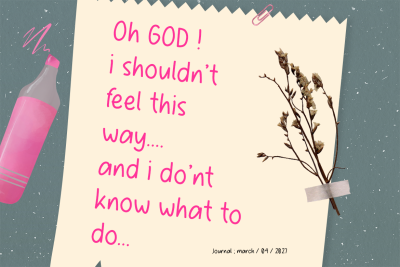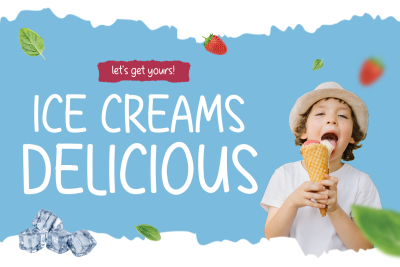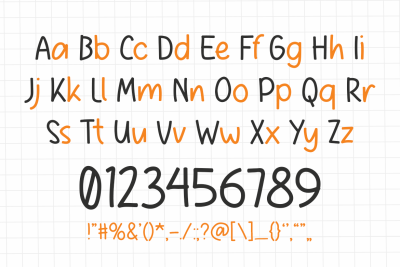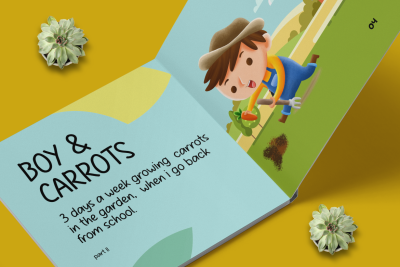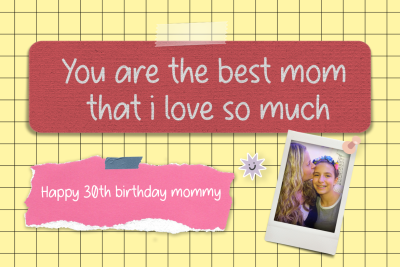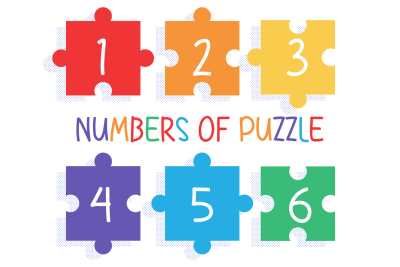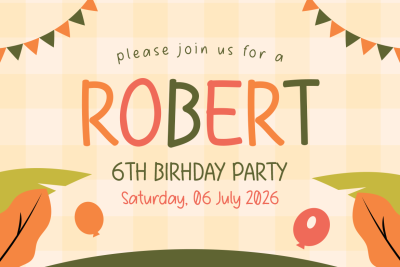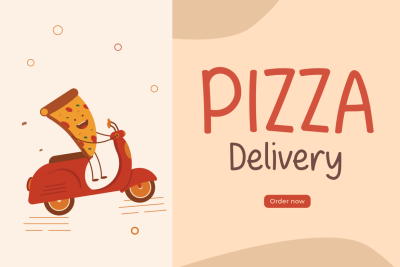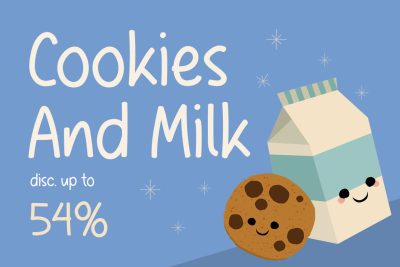
Handwriting font Aisha Note is a fun, casual, and friendly typeface designed to mimic natural handwriting with a neat and playful touch. With its smooth, slightly irregular strokes, this font feels authentic and personal, making it ideal for projects that require warmth and creativity. Moreover, its simple yet expressive style makes it perfect for note-taking, journaling, or any design that needs a handwritten feel.
Additionally, Aisha Note stands out with its clear letterforms, ensuring easy readability while maintaining a charming, hand-drawn aesthetic. The fontโs relaxed and natural flow makes it suitable for a variety of creative applications. Whether youโre working on digital planners, personal branding, or educational materials, this font provides a welcoming and engaging look. Furthermore, its versatility allows it to be used across both print and digital platforms, ensuring a handwritten touch in any medium.
Handwriting Font Aisha Note Perfect For
Aisha Note is an excellent choice for designers, students, educators, and content creators who want a natural, handwritten typeface. Specifically, it works best in the following applications:
- Journals and Notebooks: For example, use it for personal diaries, bullet journals, and planners. Its handwritten feel makes every page look more personal and creative.
- School and Educational Materials: Similarly, it is ideal for worksheets, learning guides, and flashcards. Since the font has a clear and readable structure, itโs great for young learners.
- Social Media Content: In particular, apply it to Instagram stories, digital stickers, or casual quote designs. The handwritten aesthetic gives a personal and friendly touch to online content.
- Invitations and Greeting Cards: Additionally, use it for birthday invitations, thank-you notes, and personal letters. The playful yet legible style makes every message feel warm and sincere.
- Branding and Personal Projects: Likewise, it works well for lifestyle bloggers, stationery brands, and personal websites. The casual strokes help build a friendly and relatable identity.
- Scrapbooking and DIY Crafts: Furthermore, apply it to printable templates, scrapbooks, and handmade projects. The hand-drawn feel enhances creativity and originality.
- Childrenโs Storybooks and Illustrations: Finally, it is perfect for kids’ books, comics, and interactive stories. The approachable, easy-to-read letters make it enjoyable for younger readers.
Overall, Handwriting font Aisha Note is a fantastic choice for projects that need a fun, friendly, and casual handwritten touch. Thanks to its smooth curves and authentic style, it enhances everything from educational materials to digital content. Whether you’re designing social media graphics, school projects, or creative journals, this font ensures a personal and engaging aesthetic.